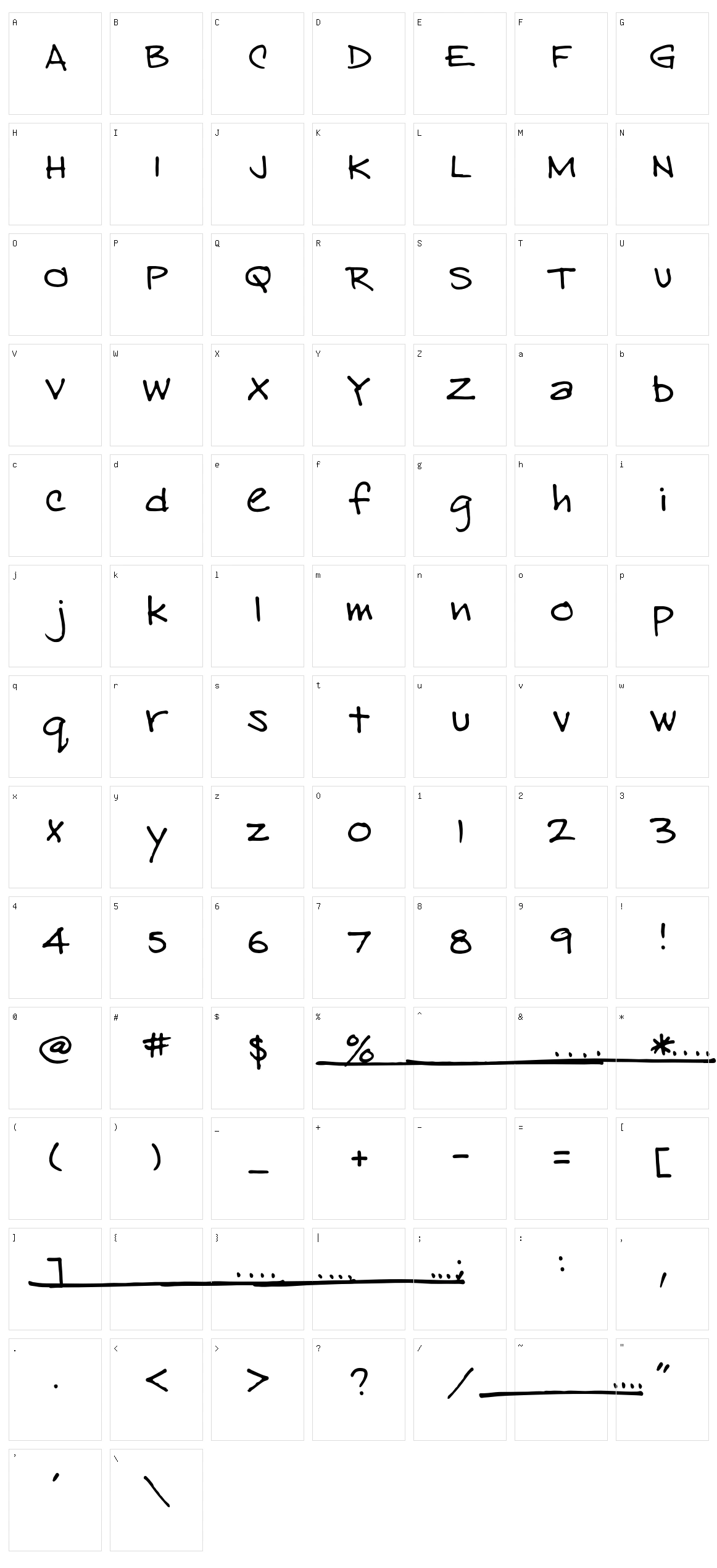
The free font East Hand is carefully designed by Nathan East, showcasing a thoughtful balance of creativity and usability and falls under the Script font style. When you download the ZIP file, it contains only 43.28 KB of font files, making it lightweight and quick to download. Please review the license details below to understand permitted usage and distribution rights. If license information is not available, we recommend using this font for personal projects only or contacting the author directly for commercial usage permissions.